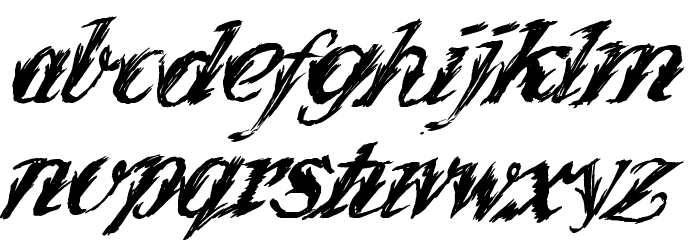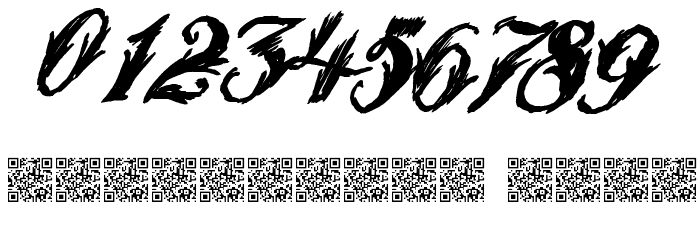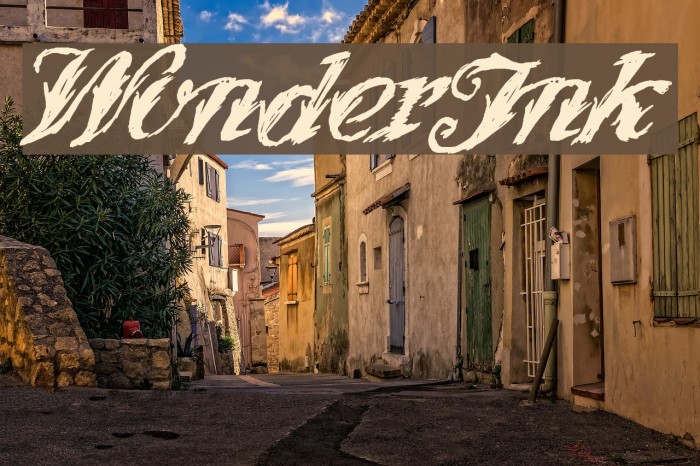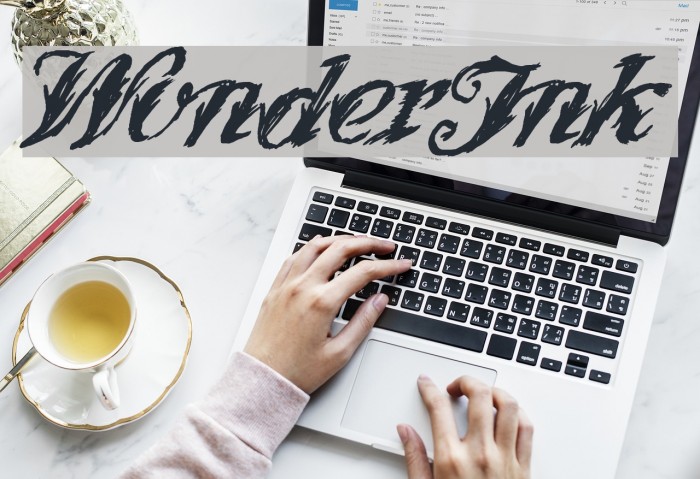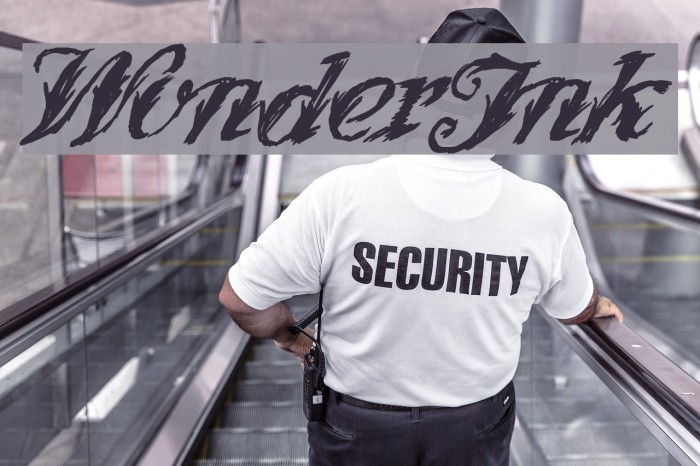
WonderInk Font
This font is a bold and expressive script with a highly decorative style. The letters are intricately designed with swirling, brush-like strokes that create a sense of movement and energy. The uppercase letters are particularly elaborate, featuring dramatic flourishes and loops. The lowercase letters maintain the same dynamic style, with a slightly more restrained design to ensure readability. Numbers and special characters are equally ornate, making this font ideal for projects that require a strong visual impact. The overall appearance is both artistic and edgy, suitable for creative and unconventional designs.
A bold, decorative script font with dynamic, brush-like strokes.
- Proposed Projects: Ideal for album covers, posters, branding for creative industries, and any project needing a bold, artistic touch.
- Character Spacing: Tight